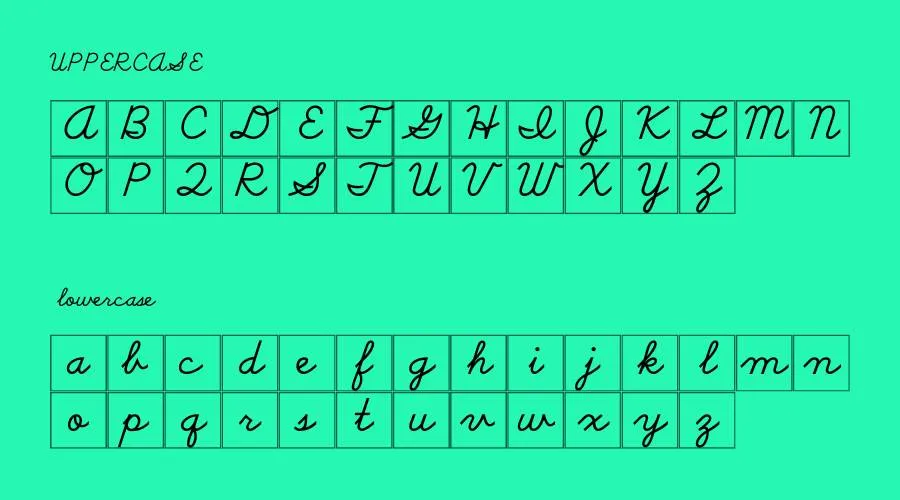
D'nealian Cursive Font
About D'nealian Cursive Font
This D'nealian Cursive Font looks like the handwritten typeface family. Actually, the D'Nealian is a method of handwriting technique. It is a Latin script-based composing and teaching procedure. It was developed by Donald N in Michigan between 1965 and 1978.
This font is a perfect choice for increasing the prominence of your designs. The style of this texture depends on the letters selected. Some typefaces were designed for the one-time benefit or do not support certain symbols but it has unique texture look appearance for the visitors.
The online generator tool of this surface will help you to transform all your simple textures into modern projects. This font is best for CSS and adobe photoshops.
This font contains unique glyphs and multiple types of characters such as uppercase letters, lowercase, letters, numeric, and punctions options. The Font also includes support for different international languages, including, Cyrillic, Latin, and Greek.
The D'nealian Cursive Font is the perfect choice for multiple purposes. This font has unique features sharp, neat lines, and an awesome style. This makes it perfect for use in headlines and other situations where you want to make attractive projects. This typeface is considered to be the best font it can easily upload in any editing application like Photoshop, Canva, and Microsoft word.
You can utilize it for making social media posts, banners, and advertisements. It can be utilized for headlines, body text, and even small details like captions and footnotes. You can also use this typeface for printing projects like signage, pamphlets, billboards, and more.
This font is the perfect choice for all your fun designs and projects, where you want to use it. The D'nealian Cursive Typeface can help to make a more professional look in your text.
Name D'nealian Cursive Font
Designer Donald N in Michigan
Style Handwritten
The D'nealian Cursive Font has amazing pairing quality, you can easily pair it with multiple other fonts style. Here are some pairing fonts to this typeface.
Pairing it with Desyrel Font: It is perfect for multiple graphic projects such as cover pages, banners, and card designs, and has the best pairing quality with the D'nealian Cursive texture.
Pairing it with Handle Font: This typeface is suitable for web page projects and has an excellent texture look impression for the viewers. You can easily use it with multiple handwritten styles.
With Rock Salt Font: It is a mutual name for halite a famous texture all around the world. You can compare these two fonts for different design purposes.
With Lilly Font: This attractive font is suitable for making an excellent and awesome project. The pairing status of this texture is outstanding with the D'nealian Cursive style.
Is the D'nealian Cursive font a handwriting font?
Yes! This amazing typeface is under the category of the handwritten texture family and is perfect for designing purposes.
What is the most legible font for D'nealian Cursive font?
The most legible texture of this typeface is Handle Font and you can pair it with multiple other handwritten textures.
Where can I utilize the Dnealian Cursive typeface?
You can utilize this texture for different projects, such as card designs, newspapers, magazines, printings, and much more.